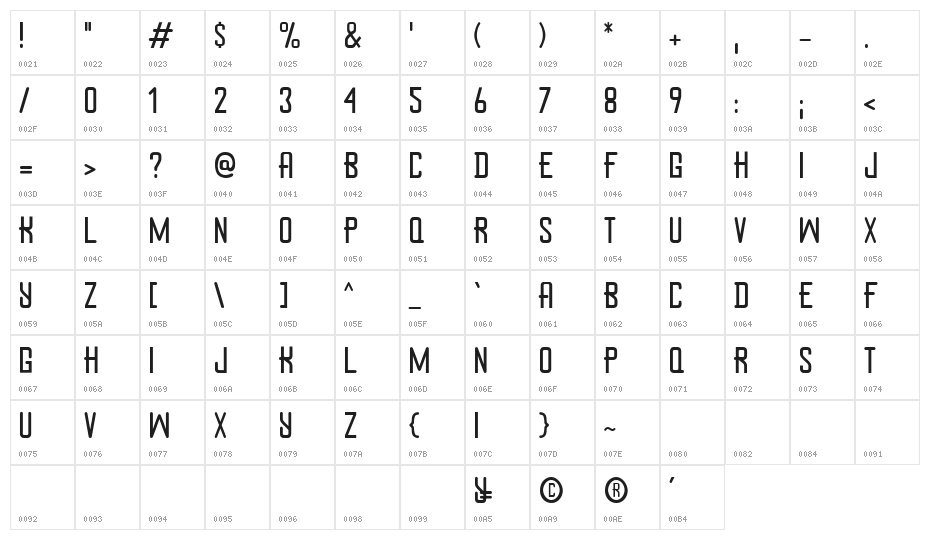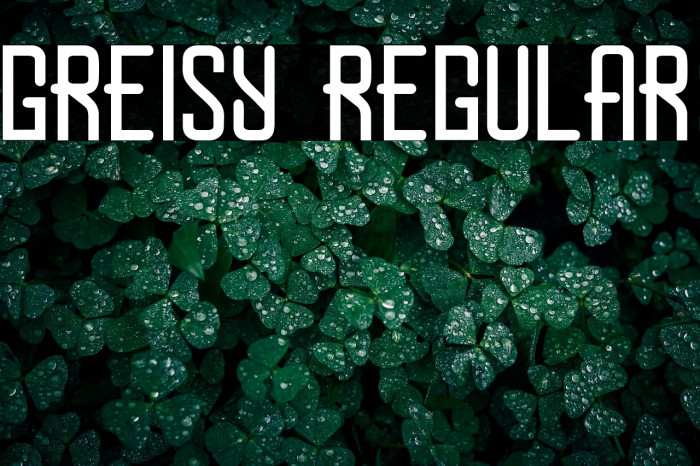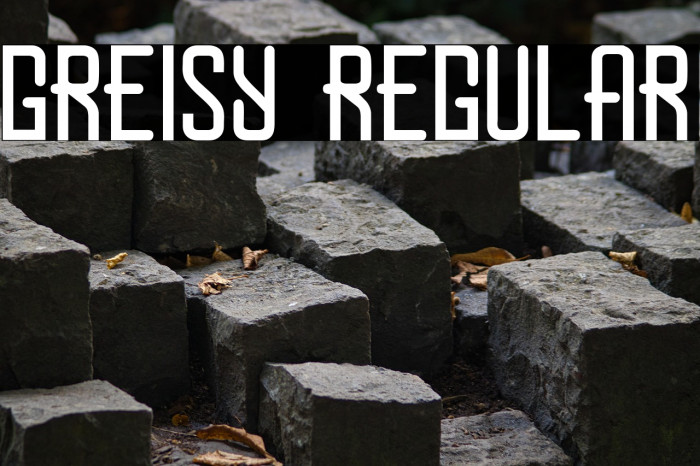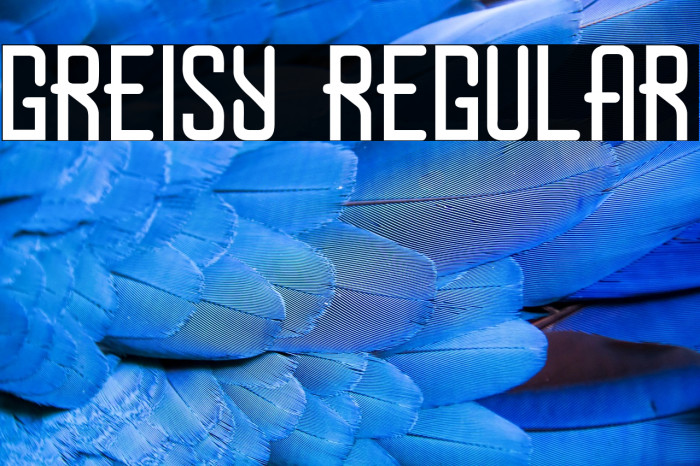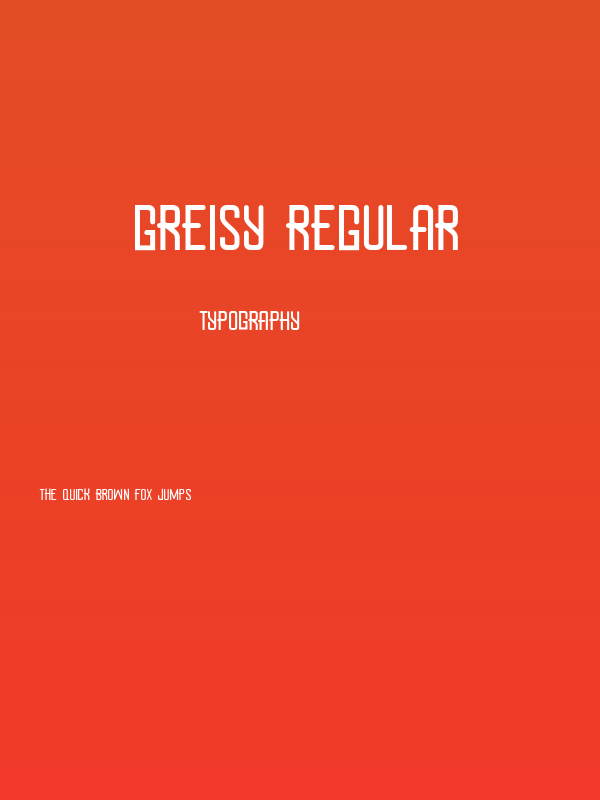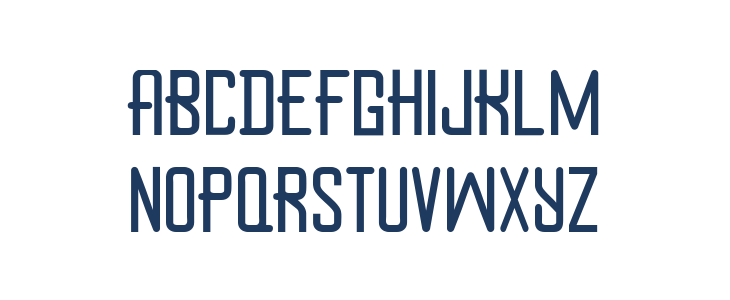
Greisy Regular Font
Greisy Regular Description
This font features a geometric and modern design with clean lines and a consistent stroke width. The characters are tall and narrow, giving it a condensed appearance. The uppercase letters are uniform in height, while the lowercase letters maintain a similar style, ensuring readability and a cohesive look. The numerals are distinct and align well with the overall design, making them suitable for various applications. Special characters are included, maintaining the same geometric style, which enhances the font's versatility.
WidthCondensed
Character SpacingMonospaced
ContrastLow
Overall StyleModern
Use CaseHeadlines, Logos, Posters
Proposed ProjectsIdeal for branding, posters, headlines, and digital media where a modern and clean aesthetic is desired.